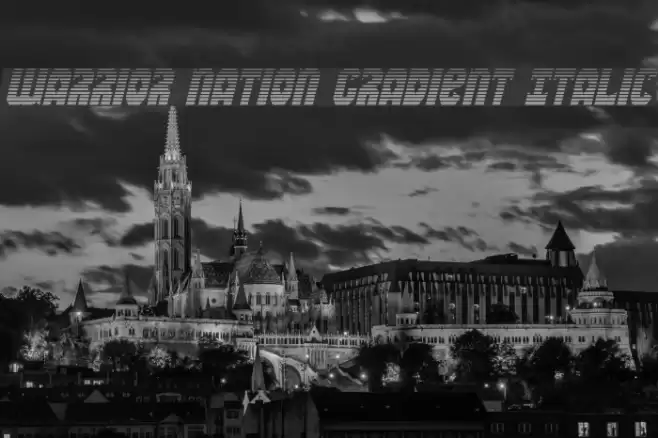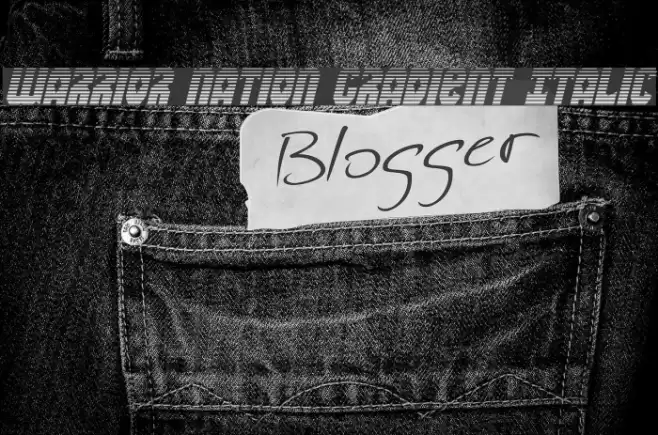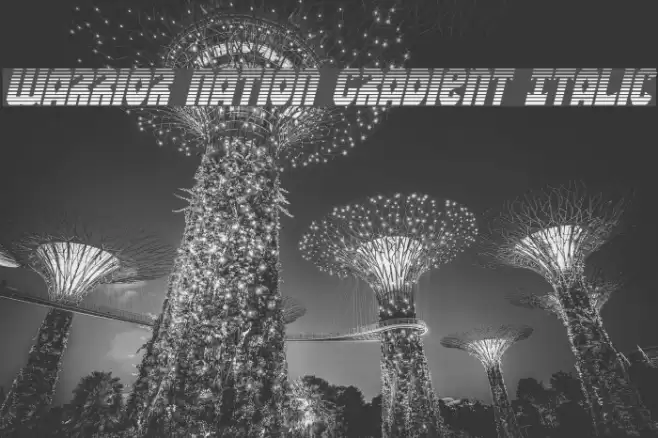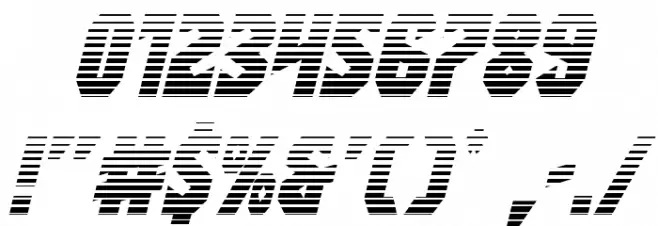
Warrior Nation Gradient Italic Font
Warrior Nation Gradient Italic Description
This font features a bold, italicized style with a unique gradient effect that gives it a dynamic, futuristic appearance. The characters are composed of horizontal lines that create a sense of movement and energy, making it ideal for attention-grabbing designs. The uppercase and lowercase letters maintain a consistent style, with sharp angles and a slightly condensed form. The numbers and special characters follow the same design principles, ensuring uniformity across all glyphs. This font's distinctive look is perfect for projects that require a modern and edgy aesthetic.
A bold, italicized font with a gradient effect and dynamic, futuristic style from Uncategorized fonts.
- Proposed Projects: Ideal for sports branding, video game titles, sci-fi posters, and dynamic logo designs.
- Width: Condensed
- Contrast: High